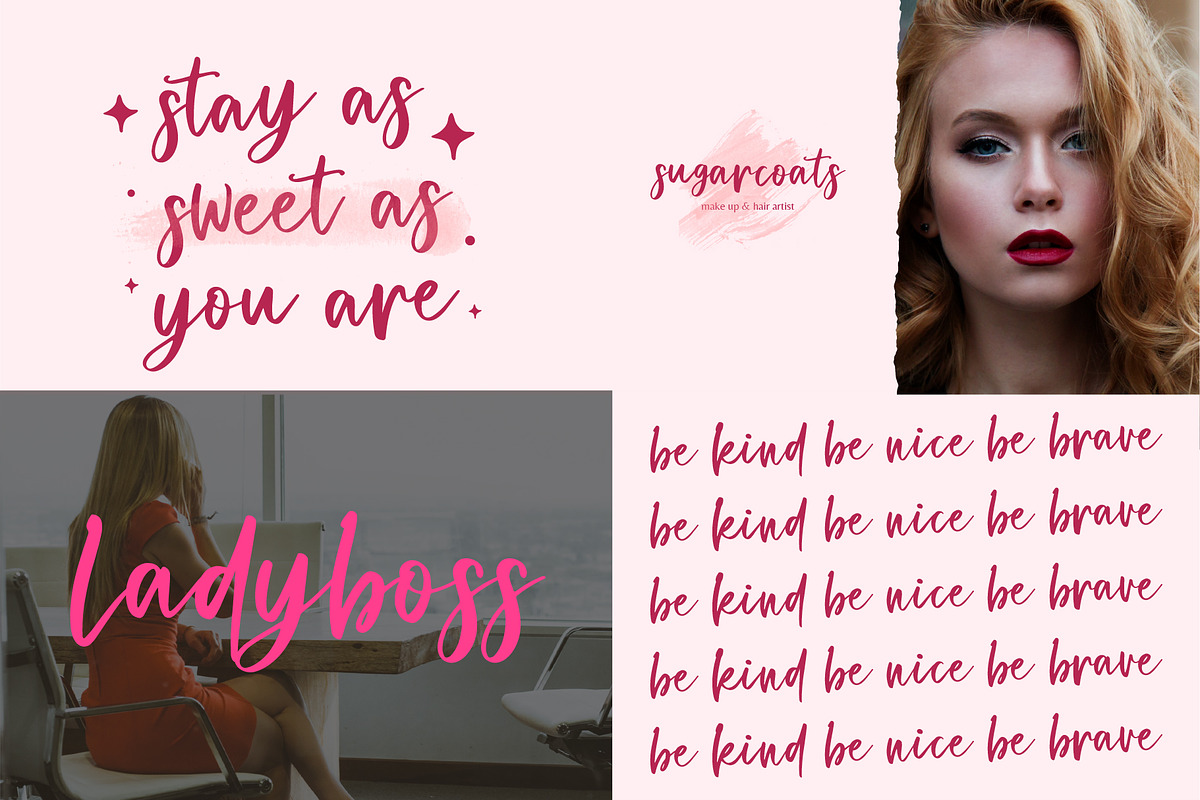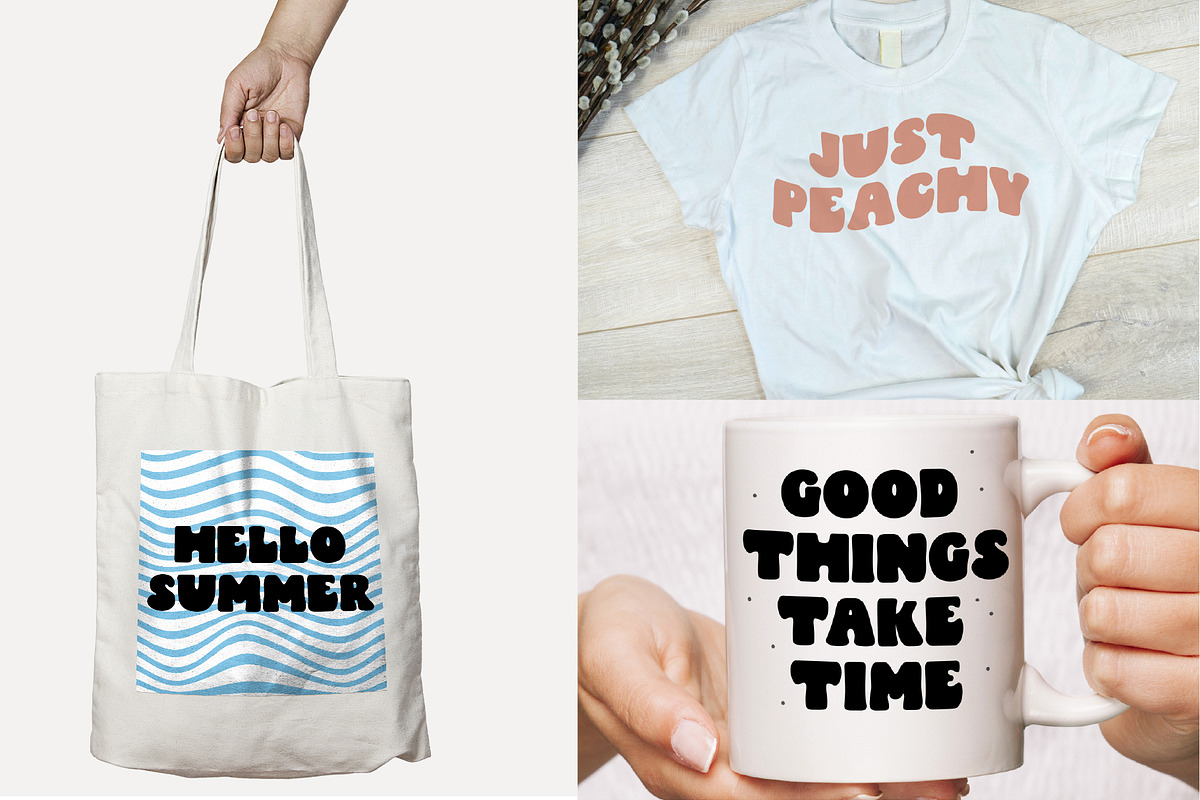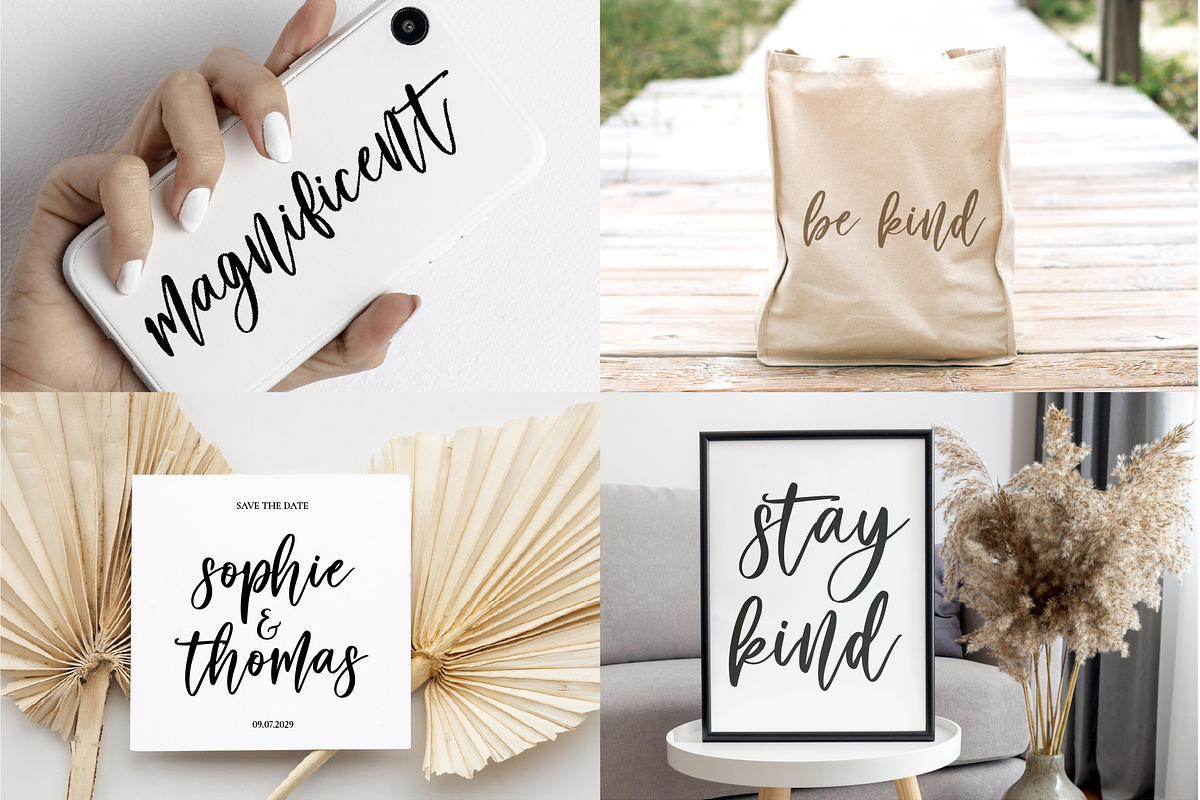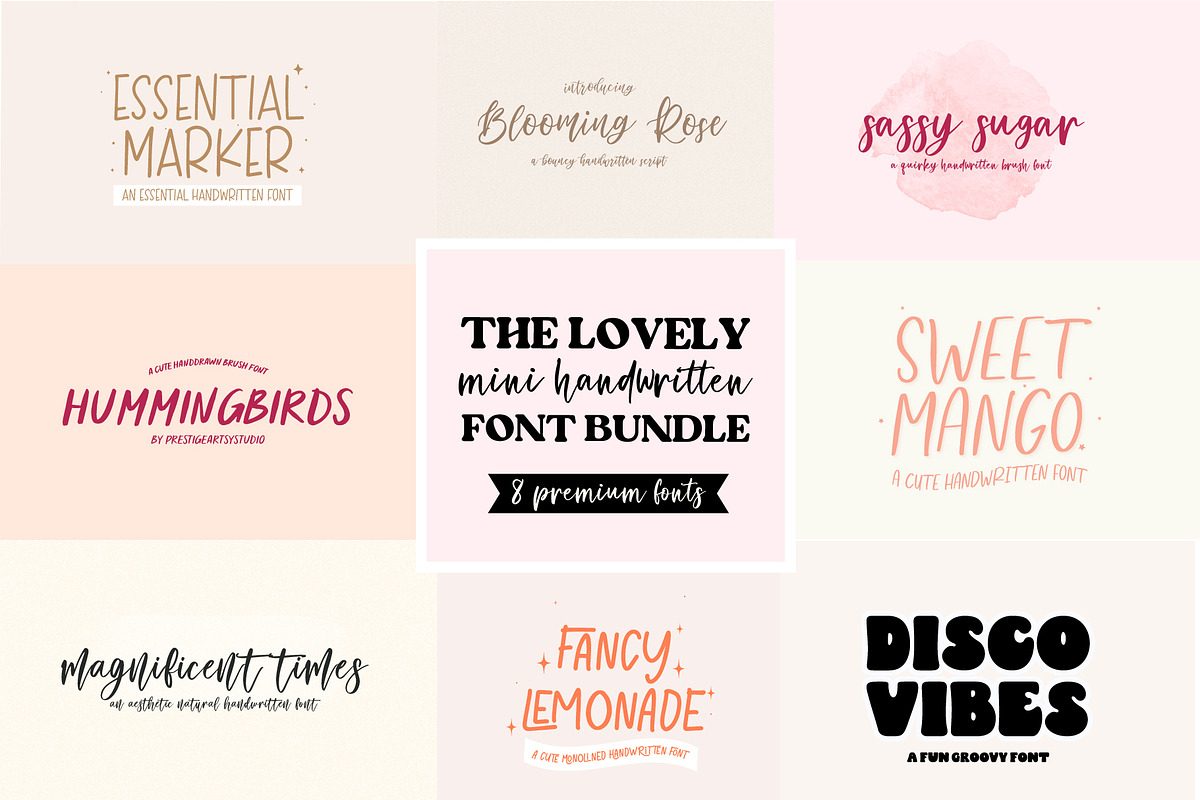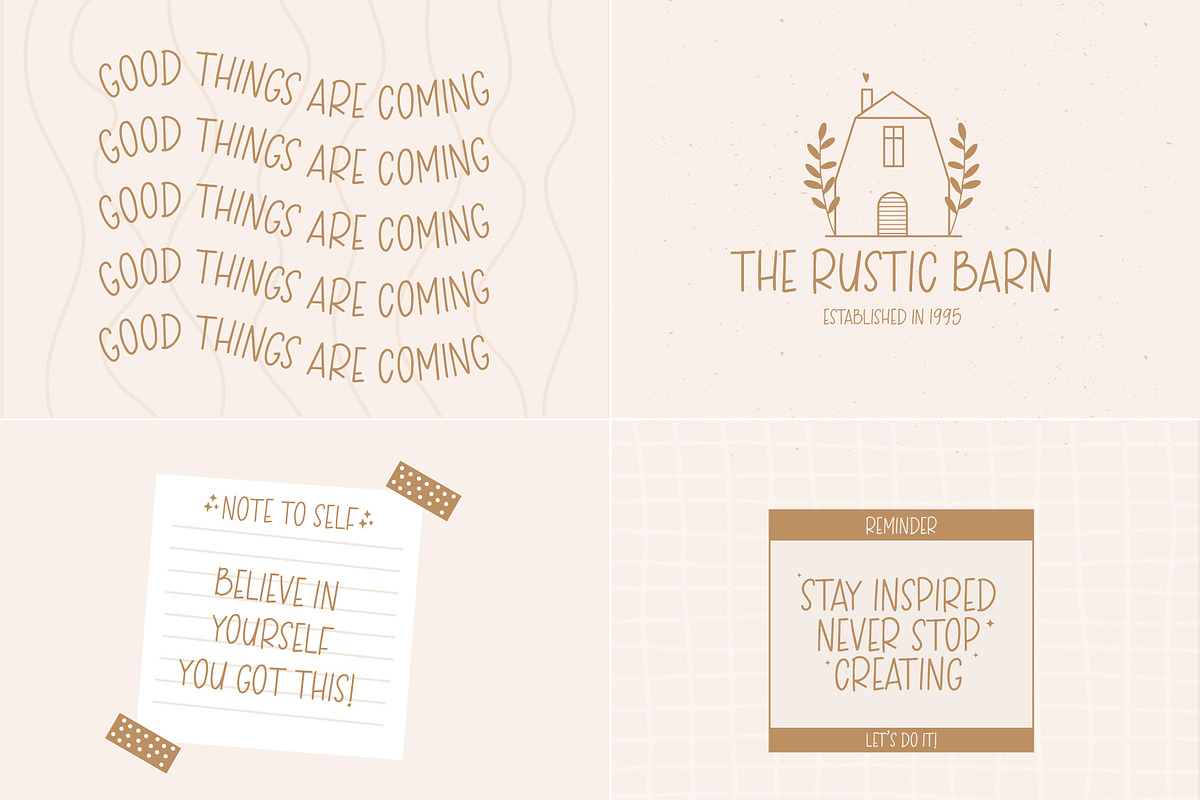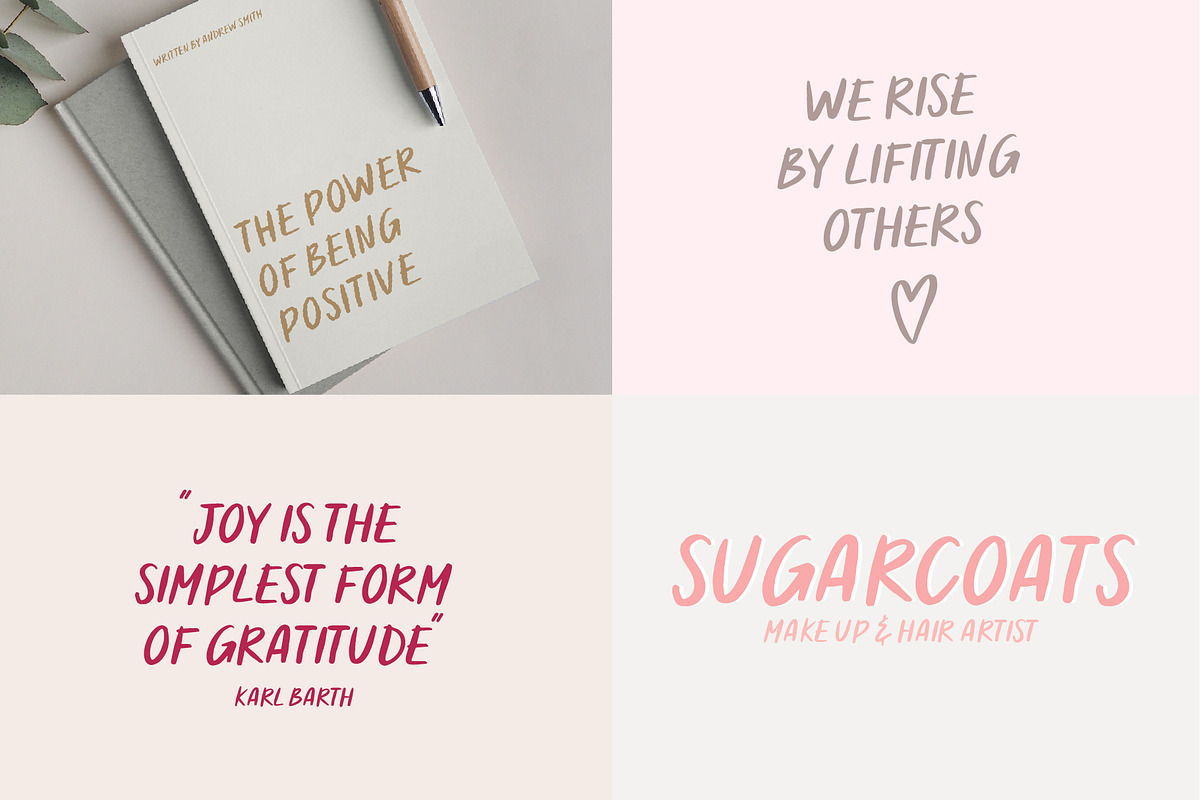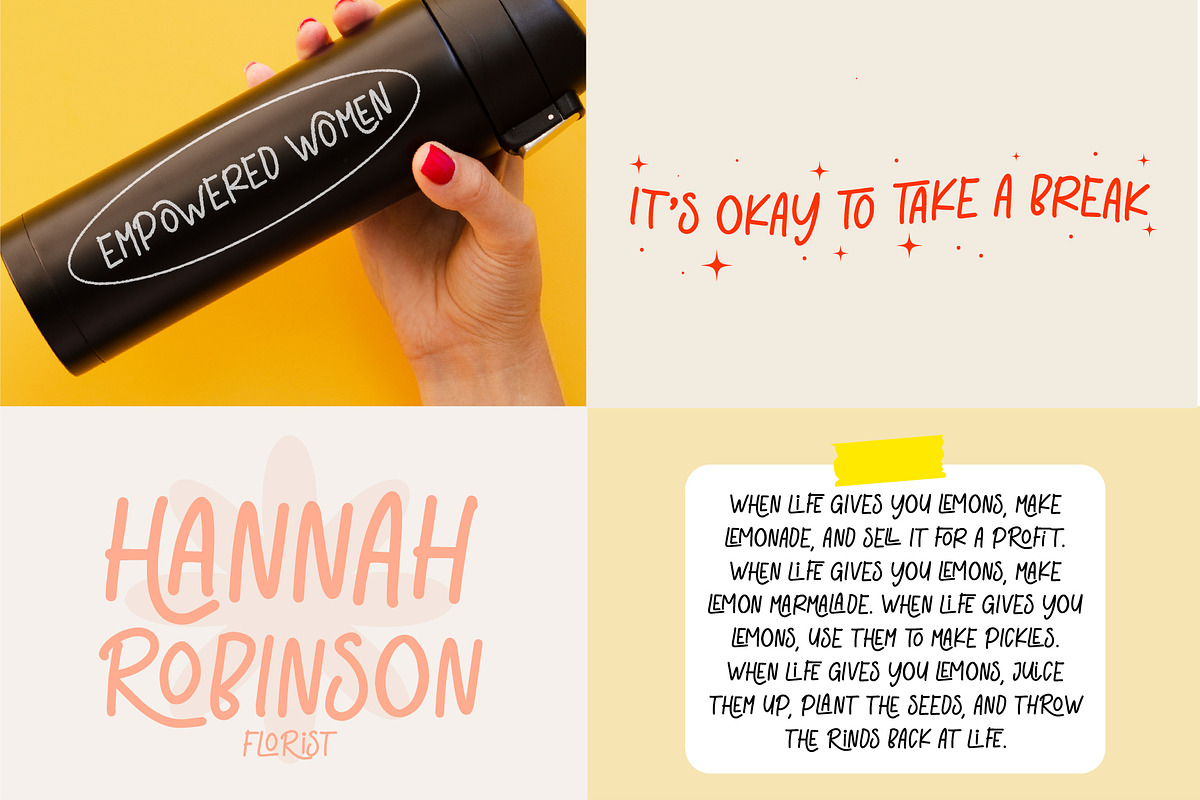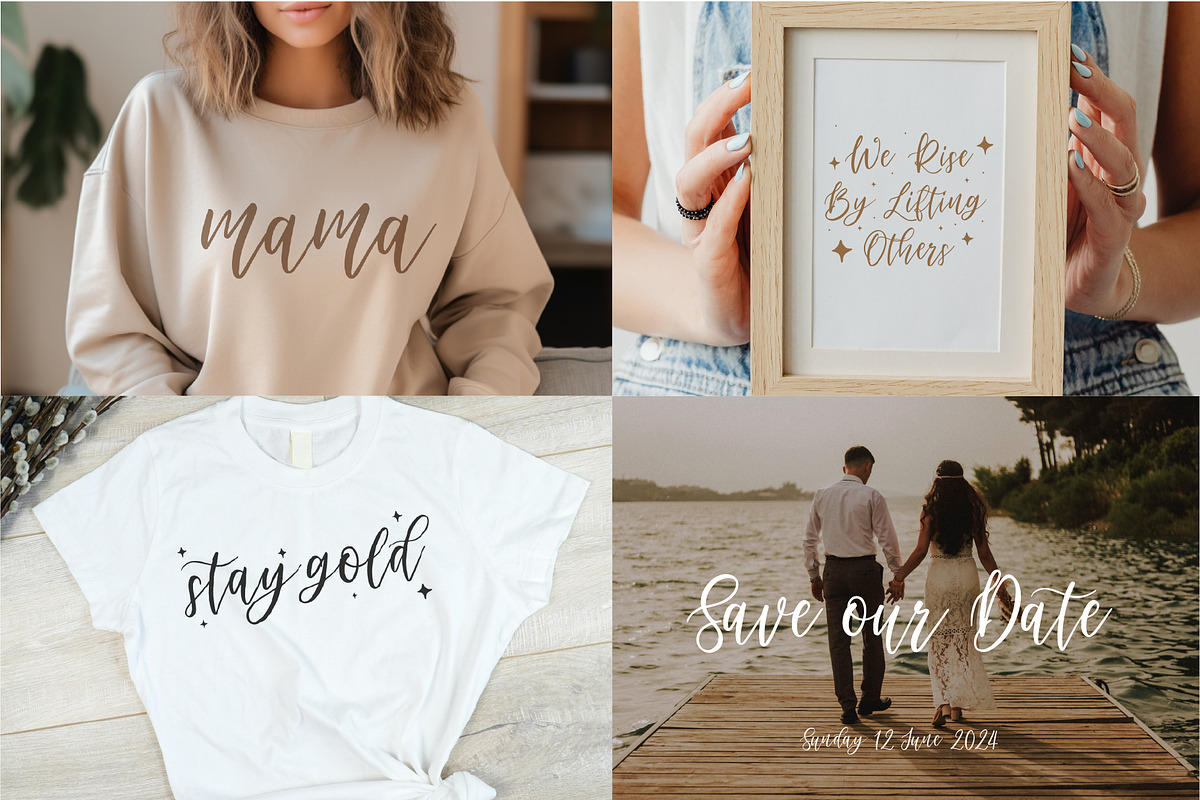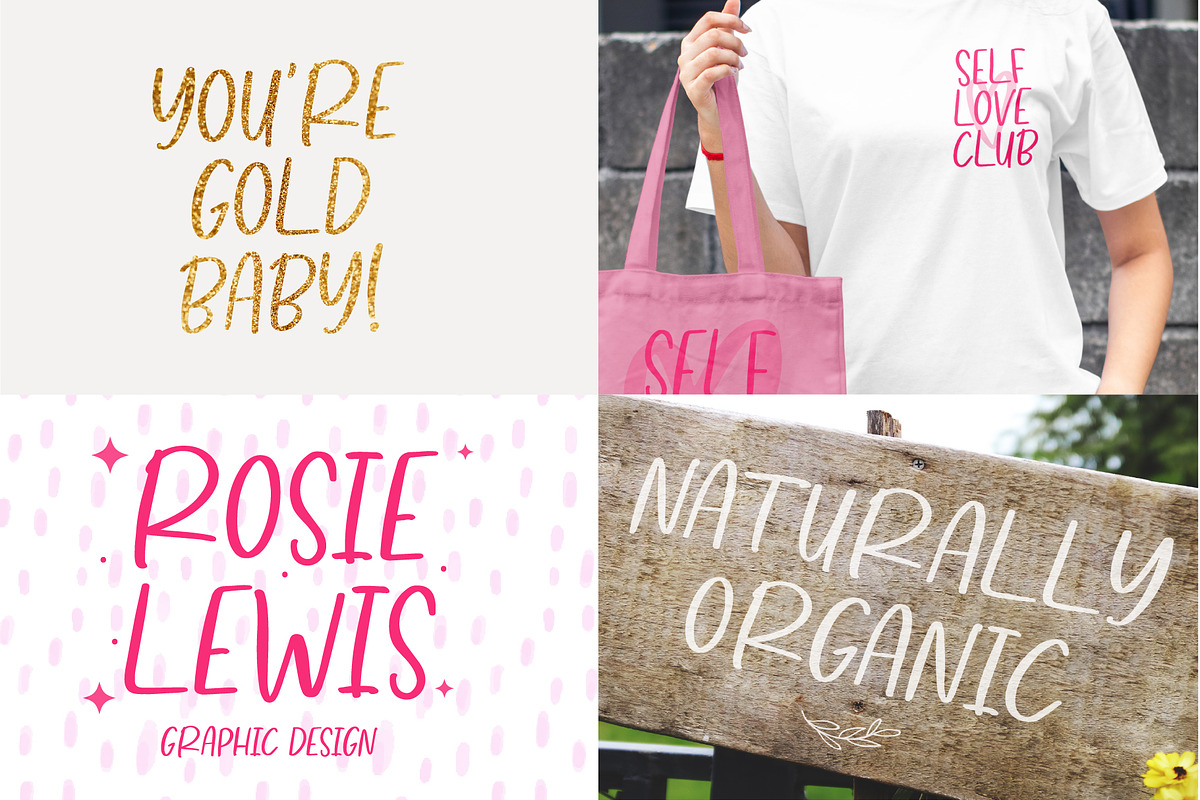
The Lovely Mini Handwritten Bundle
Introducing the Mini Bundle of 8 Elegant Handwritten Fonts, a collection that combines sophistication, charm, and versatility in one exquisite package. This bundle offers a diverse selection of fonts, each carefully crafted to add an elegant touch to your designs.
With eight unique handwritten fonts to choose from, this Mini Bundle allows you to explore a variety of styles, ensuring that you have the perfect font for any project. From delicate and graceful scripts to bold and expressive lettering, this collection offers a wide range of options to suit your creative needs.
These fonts are perfect for a myriad of design applications. Whether you’re creating wedding invitations, logos, branding materials, packaging designs, or social media graphics, the Mini Bundle of 8 Elegant Handwritten Fonts will elevate your work to new heights of sophistication.
Experience the beauty and versatility of our Mini Bundle of 8 Elegant Handwritten Fonts. Embrace the power of elegance and witness your designs come to life with grace and style.
- Included in this set:
→ Essential Marker
→ Blooming Rose
→ Sassy Sugar
→ Hummingbirds
→ Sweet Mango
→ Magnificent Times
→ Fancy Lemonade
→ Disco Vibes with Outlined Font Version